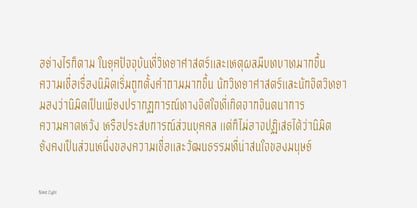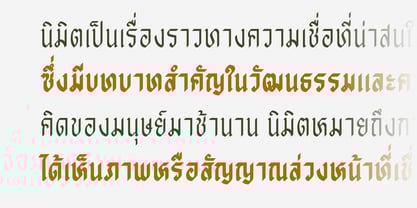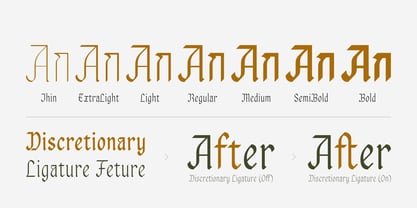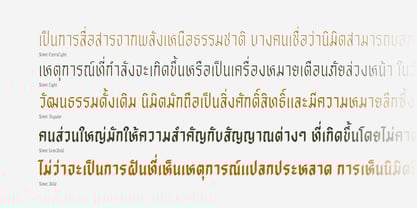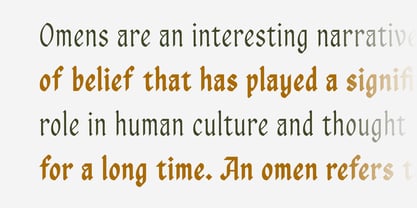
Nimit
by Jipatype
The Nimit Font Family was designed by Anupap Jaichumnan and published by Jipatype. Nimit contains 7 styles and family package options. More about this family
Nimit is a typeface that mimics the style of writing with a broad-nib pen to create a simplified blackletter style. It is suitable for public relations media that communicate antiquity and mystique. This typeface consists of 7 variants, covering line weights from the thinnest to the boldest, supporting both Latin-1 and Thai character sets.
Designers: Anupap Jaichumnan
Foundry: Jipatype
About Jipatype
Jipatype is a type foundry founded and operated solely by Anupap Jaichamnarn, based in Bangkok, Thailand. Officially established in 2022, the foundry's journey began in 2019. The name "Jipatype" is derived from the Thai word “Jipatha” (จิปาถะ), meaning "miscellaneous" or "variety." This name reflects the diverse design concepts and influences that shape Jipatype’s versatile font collections.